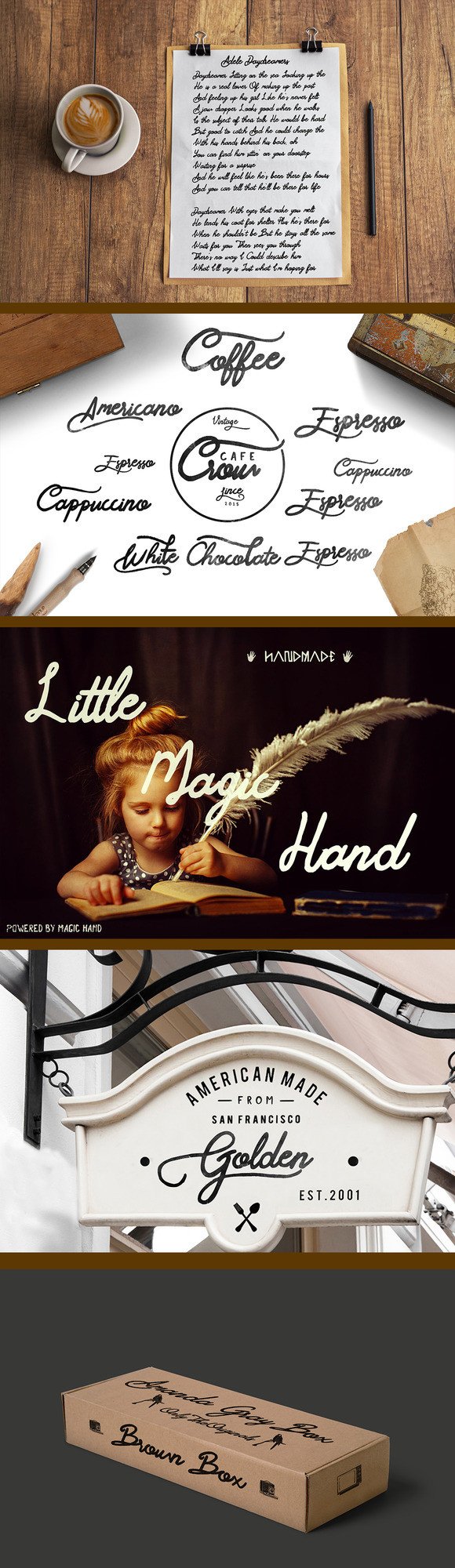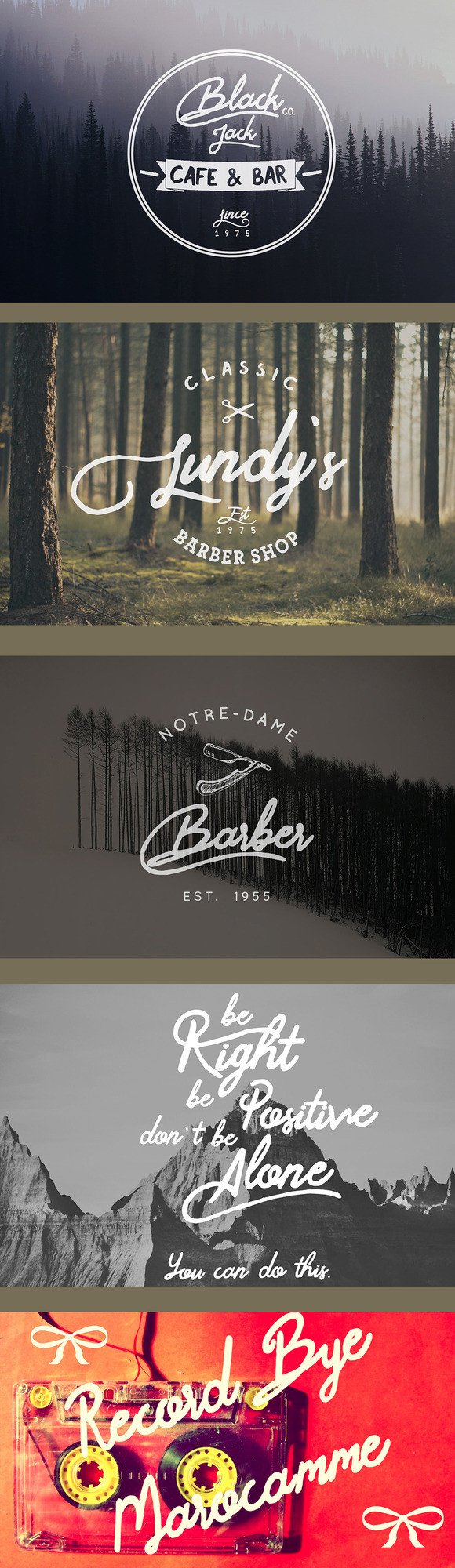
Introduction to La Rose Font Font
Fonts play a crucial role in design, and the La Rose Font font is a typeface that brings both character and versatility to any project. Whether you’re working on a branding project, a website, or a print design, the La Rose Font font offers a unique style that can elevate your work.
| 📌 Font Name | La Rose Font |
| 👤 Author | Only The Originals |
La Rose is a beautiful & playful typeface.
Perfect for designing invitations, greeting cards, branding materials, business cards, quotes, posters, t-shirts, and much more .
Key Features of La Rose Font Font
Why Choose La Rose Font Font?
The La Rose Font font is more than just a typeface – it’s a design tool that helps you communicate your message with style and clarity. Its unique character set and versatile design make it suitable for a wide range of applications, from elegant invitations to bold headlines.
With its carefully crafted letterforms and balanced proportions, the La Rose Font font ensures readability and visual appeal across all mediums.
What makes La Rose Font font special?
The La Rose Font font stands out with its unique design, exceptional readability, and versatility across various design applications.